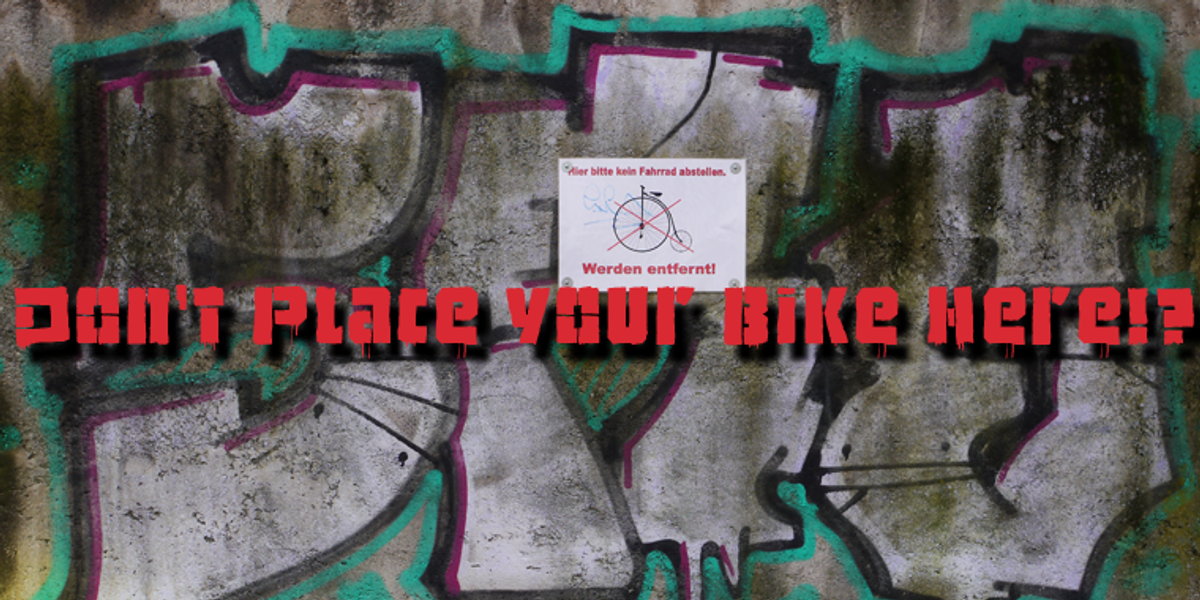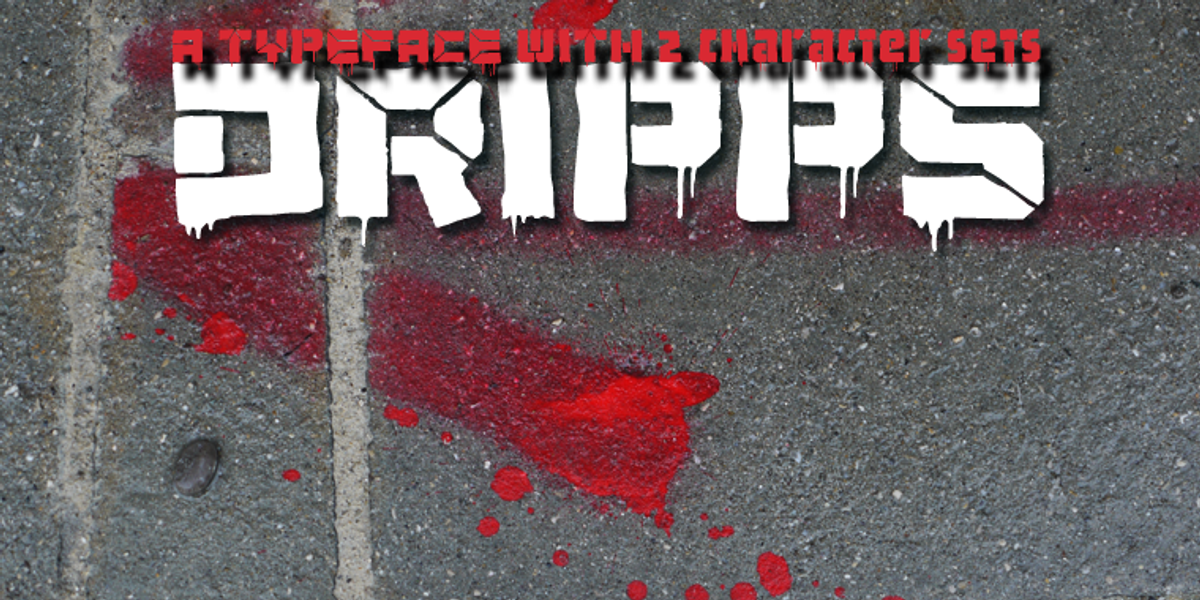
Dripps
Dripps is a grunge novelty typeface designed by Gert Wiescher. It's characterized by its handpainted, stenciled aesthetic with prominent drips. The font features two distinct sets of capital letters but lacks lowercase characters.